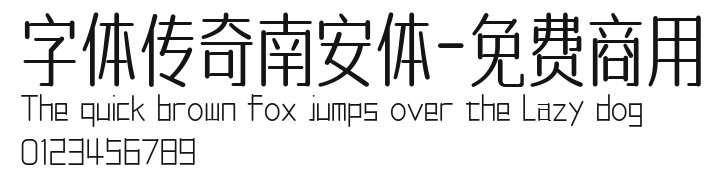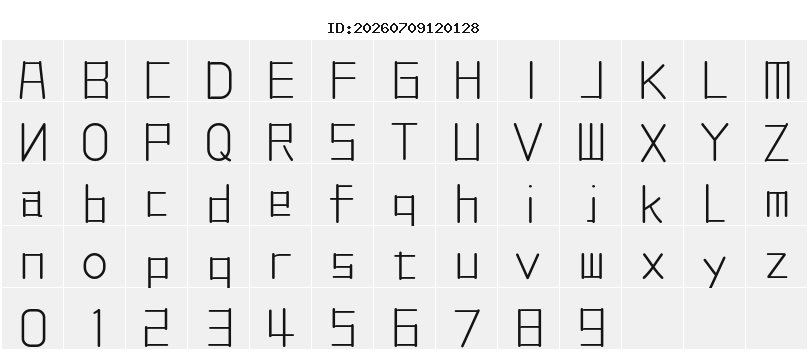
字体传奇南安体-免费商用 Preview
• Font Name: 字体传奇南安体-免费商用
• Font ID: ziticqnananti:Version 1.00
• Full Font Name: 字体传奇南安体-免费商用
• PostScript Name: ziticqnananti
• Character Count: 7001
• Designer: 字体传奇网-设计师吴金彬设计
• Description: 国家版权局登记字体作品
About 字体传奇南安体-免费商用.ttf
字体传奇南安体-免费商用.ttf is a modern, elegant sans-serif font designed for ultimate readability and visual harmony. Perfect for branding, headlines, web design, and print materials.